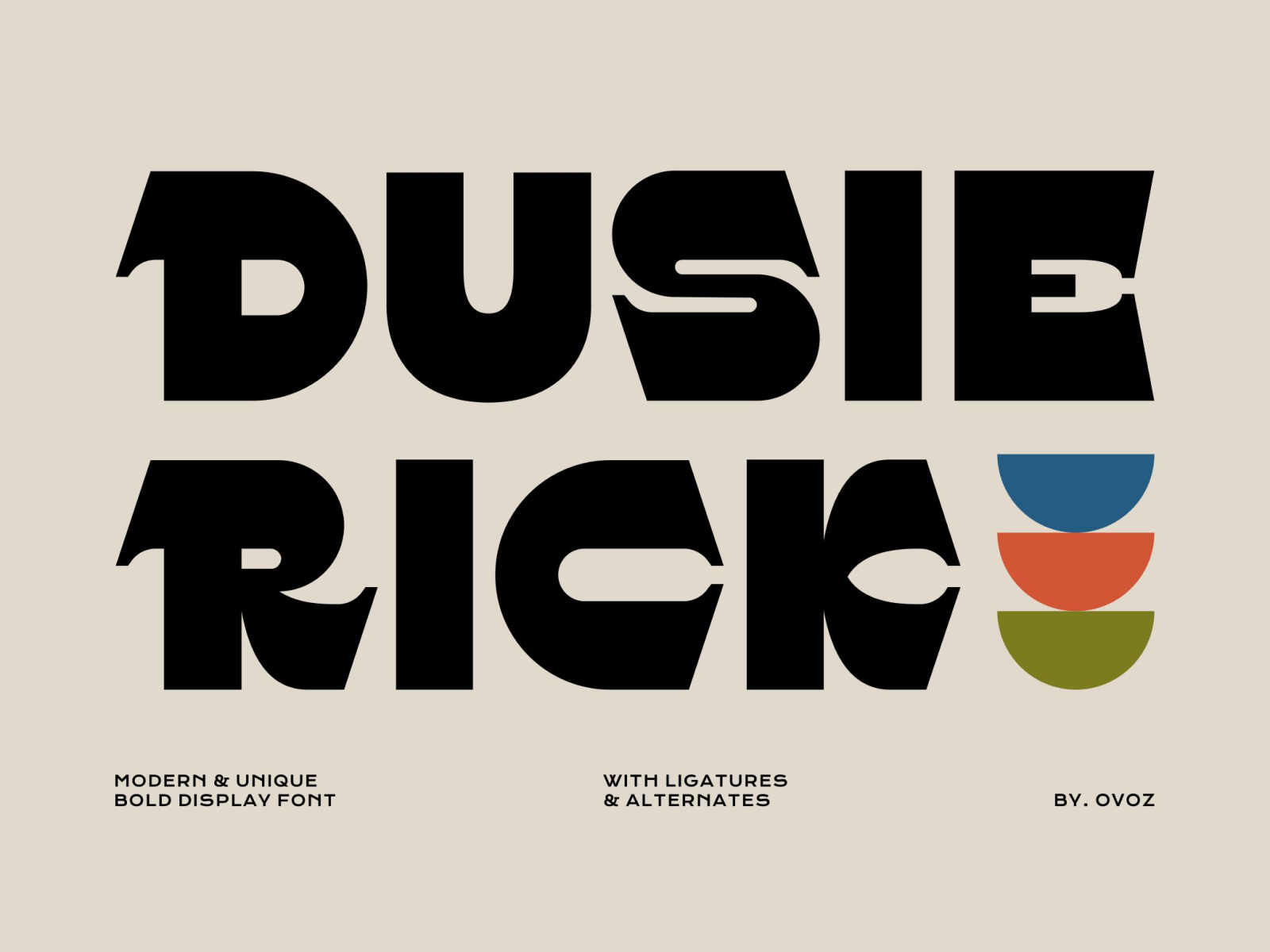
Dusie Rick Display Typeface
A versatile font that works in both uppercase and lowecase sizes, suitable for a wide variety of projects such as a display font for headings, logo fonts, invitations, branding, magazine, photography, card, product packaging, product mockup, mugs, posters, labels, editorials, art deco, any type of advertising purpose.